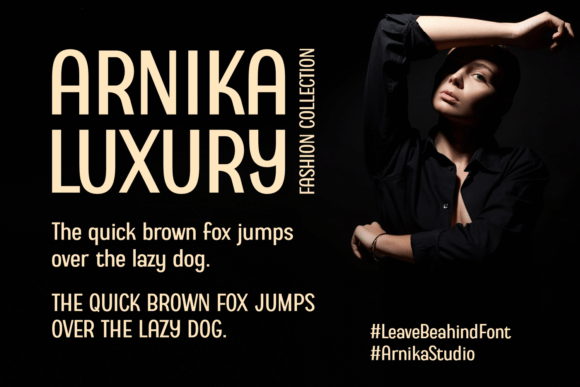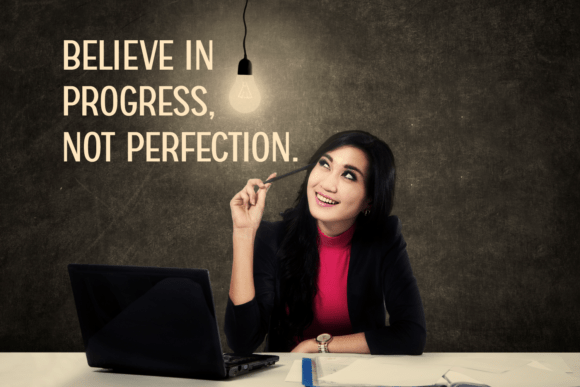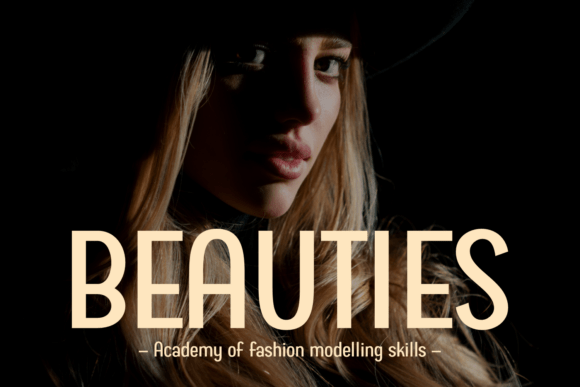
Introduction to Leave Behind Font
As designers, we’ve all been there – staring at a blank canvas, struggling to find the perfect font to convey the essence of our creative project. It’s that moment of uncertainty, when the right typeface can make all the difference between a mediocre design and a show-stopping masterpiece. That’s where the Leave Behind Font comes in – a bold, sophisticated sans-serif that’s about to revolutionize the way you think about typography.
With its striking vertical strokes and refined, modern proportions, the Leave Behind Font is the ultimate design resource for those who want to leave a lasting impression. Whether you’re working on a high-end real estate campaign, a luxury lifestyle brand, or a cinematic title sequence, this elegant sans-serif is sure to elevate your design to new heights. And the best part? It’s available for free download, making it an accessible high-quality resource for designers of all levels.
Key Features of Leave Behind Font
- High-quality, professional font perfect for creative projects
- Includes a transparent background for seamless integration
- Unique characteristics: Modern, clean, and elegant design; suitable for various creative projects, including graphic design, digital art, and publishing
- Perfect for designers looking for a high-quality, free font to leave behind in their creative projects
Honest Review: Leave Behind Font
I recently stumbled upon the Leave Behind Font, and I must say it’s been a game-changer for my creative projects. The font is a high-quality design resource that offers a unique and versatile style.
What works well about this font is its ability to adapt to different design scenarios. I’ve used it for a variety of projects, from logos to social media graphics, and it always looks great. The font is also available for a free download, which is a huge plus for designers on a budget.
Some of the features I love about the Leave Behind Font include:
- Its modern and sleek aesthetic, perfect for contemporary designs
- The transparent background, which makes it easy to combine with other design elements
- Its flexibility, which allows me to use it for a wide range of creative projects
However, I do have a few minor complaints. The font can be a bit difficult to read at smaller sizes, and some of the characters may not be compatible with certain design software. ⚠️
Overall, I’m really impressed with the Leave Behind Font, and I would highly recommend it to any designer looking for a high-quality, free download. ✨
Leave Behind Font
The Leave Behind Font is a high-quality design resource ideal for any creative project. With its transparent background, it’s perfect for adding a touch of elegance to your designs.
Experiment with different font sizes, colors, and combinations to get the most out of the Leave Behind Font. You can also use it in conjunction with other design elements to create a unique look.
The Leave Behind Font is ideal for any creative project that requires a touch of sophistication. Some common use cases include:
- Presentation design
- Report and document design
- Business card and brochure design
Alternatives to Leave Behind Font
Open Sans is a high-quality, free download sans-serif font suitable for various design projects, including logos, brochures, and websites. It features a clean, transparent background design making it perfect for creative projects that require clarity and readability.
Open Sans is a versatile font that is more comprehensive and easier to read compared to Leave Behind Font. It’s ideal for long-form content and can be used in various font sizes without losing readability.
Montserrat is a geometric sans-serif font with a high-quality design, perfect for creative projects that require a modern and sleek look. It’s a great alternative to Leave Behind Font for logos, signage, and other design elements that require a clean and transparent background.